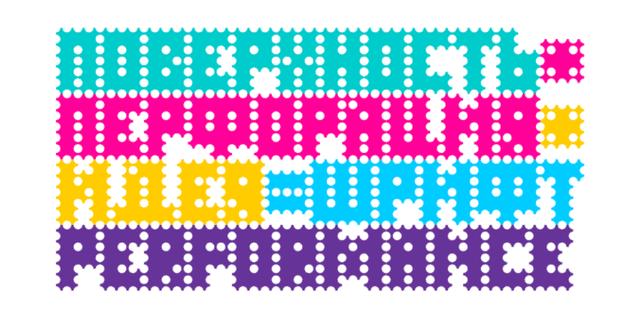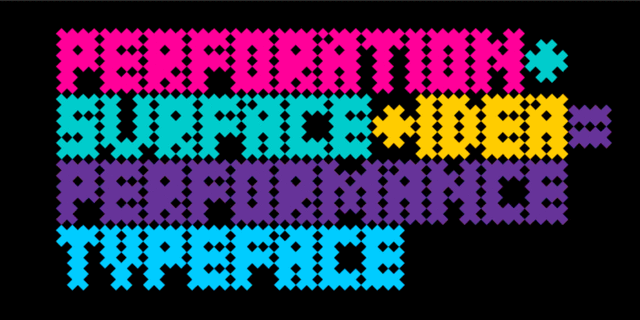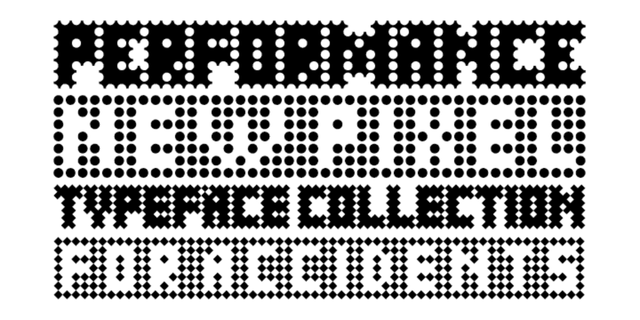
Performance (4 fonts)
About Performance is a set of perforated plates that appear to be characters. The construction of the characters is described by sequences of holes whose shape and placement define the appearance and mood of font styles. An interesting feature of the design is the absence of side bearings and leading. Due to this feature a text article set by Performance forms a perforated coherent surface similar to a postage stamp block. The font was designed by Alexey Bokov and released by ParaType in 2009.
heavy, automatic, computer, electronic, machine, Matrix, experimental, notable, bright, active, splashy, psychedelic